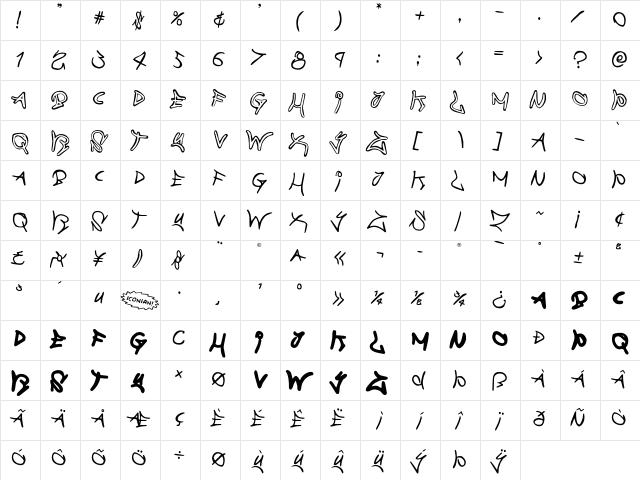
Graffiti Street Rotated 2 Regular
Design Context for Graffiti Street Rotated 2 Typeface
Graffiti Street Rotated 2 is a composed and adaptable typeface that performs quietly and consistently across a wide range of design contexts.